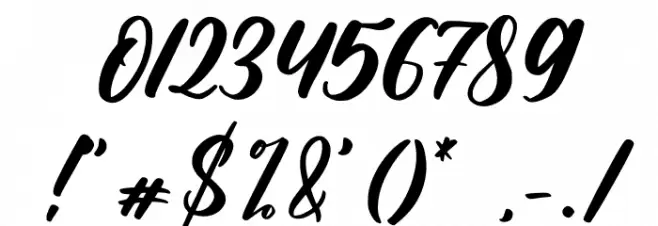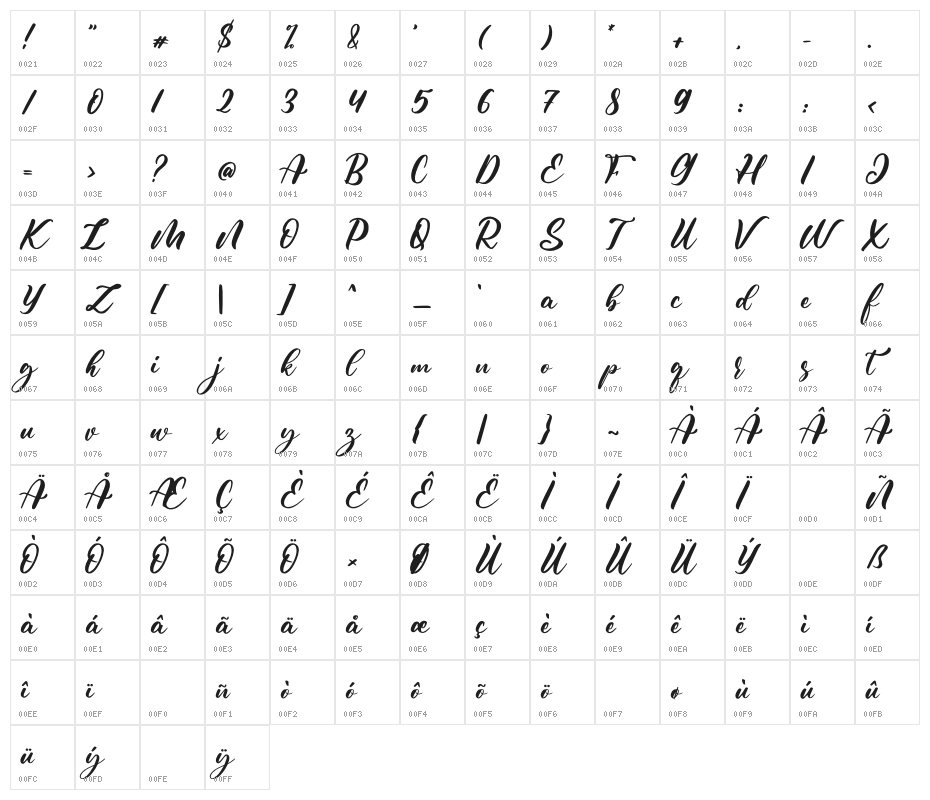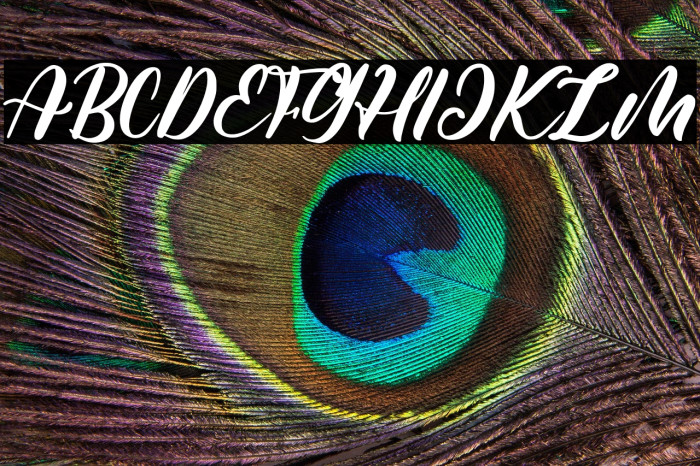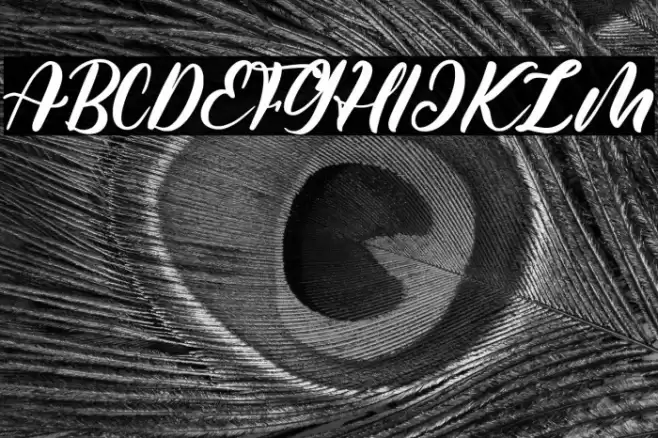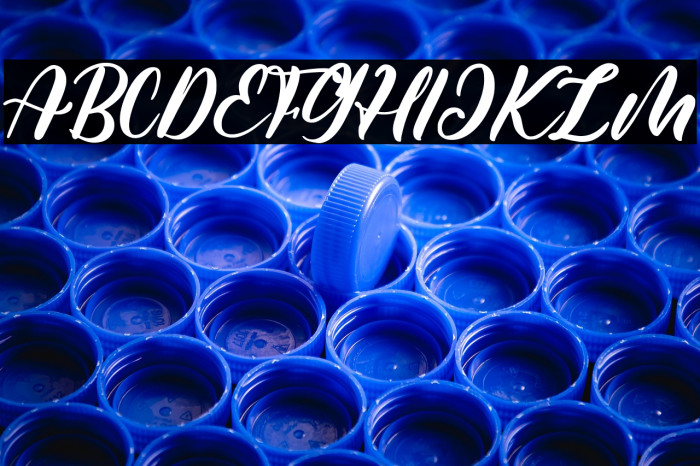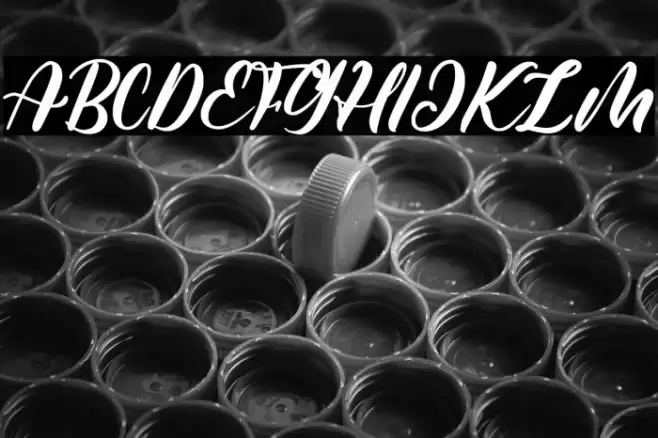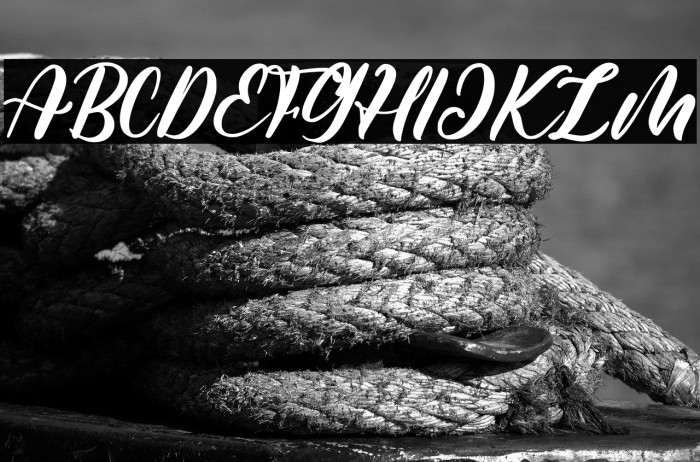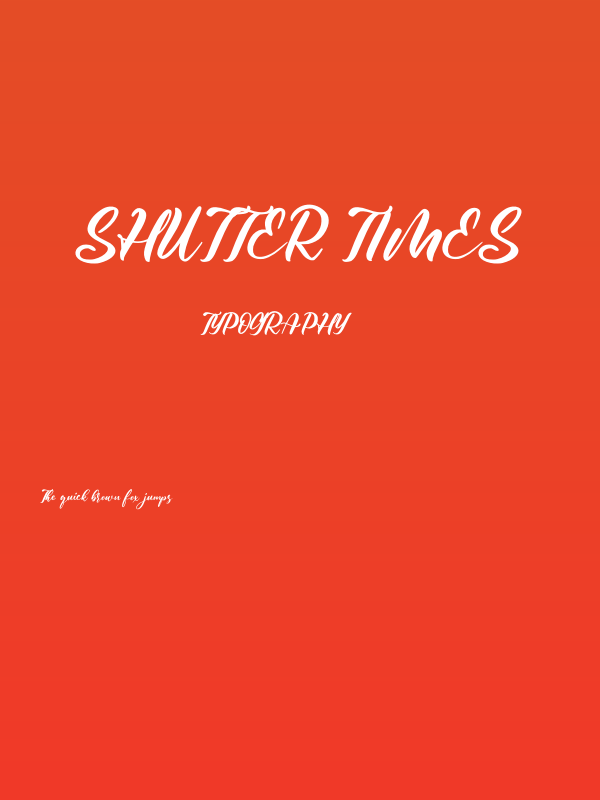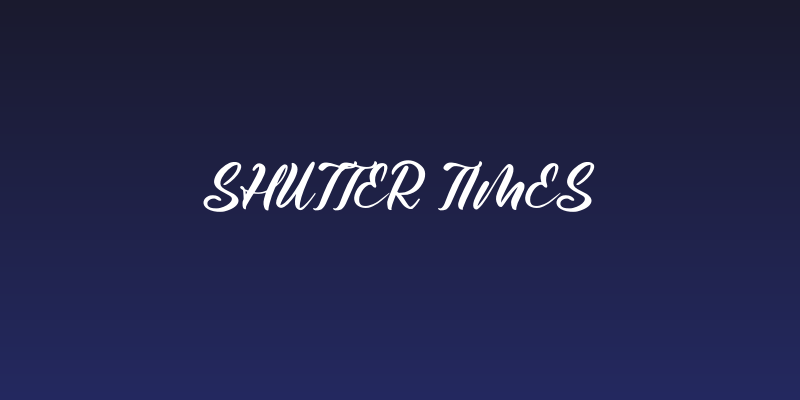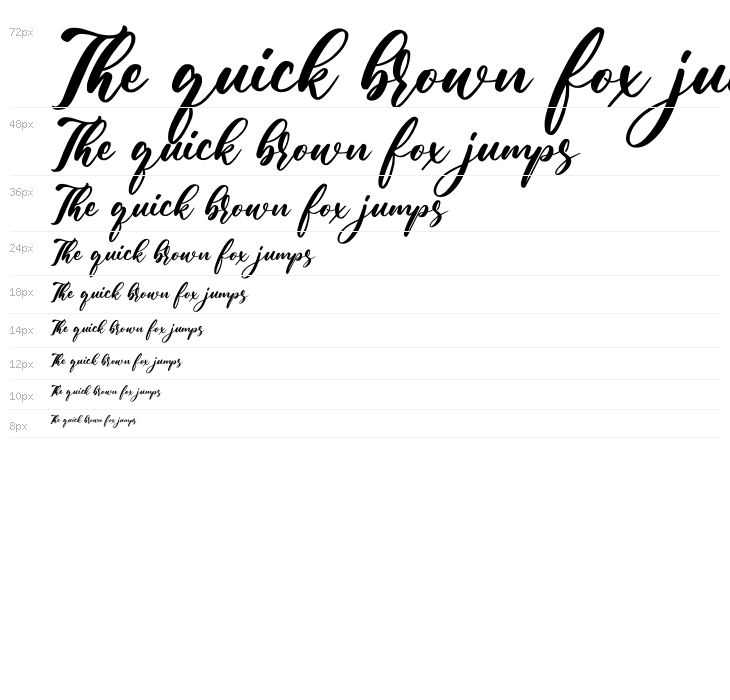
Shutter Times Font
Shutter Times Description
This font exudes a dynamic and expressive style, characterized by its fluid, cursive script. The letters are elegantly connected, with a consistent flow that mimics natural handwriting. The uppercase letters are bold and sweeping, while the lowercase letters maintain a graceful and smooth appearance. The numerals are equally stylish, featuring the same cursive flair. Special characters are thoughtfully designed to match the overall aesthetic, making this font versatile for various creative applications. The strokes are thick, providing a strong visual impact, yet the overall design remains balanced and harmonious.
| Proposed Projects | Ideal for wedding invitations, greeting cards, branding projects, and any design requiring a personal, elegant touch. |